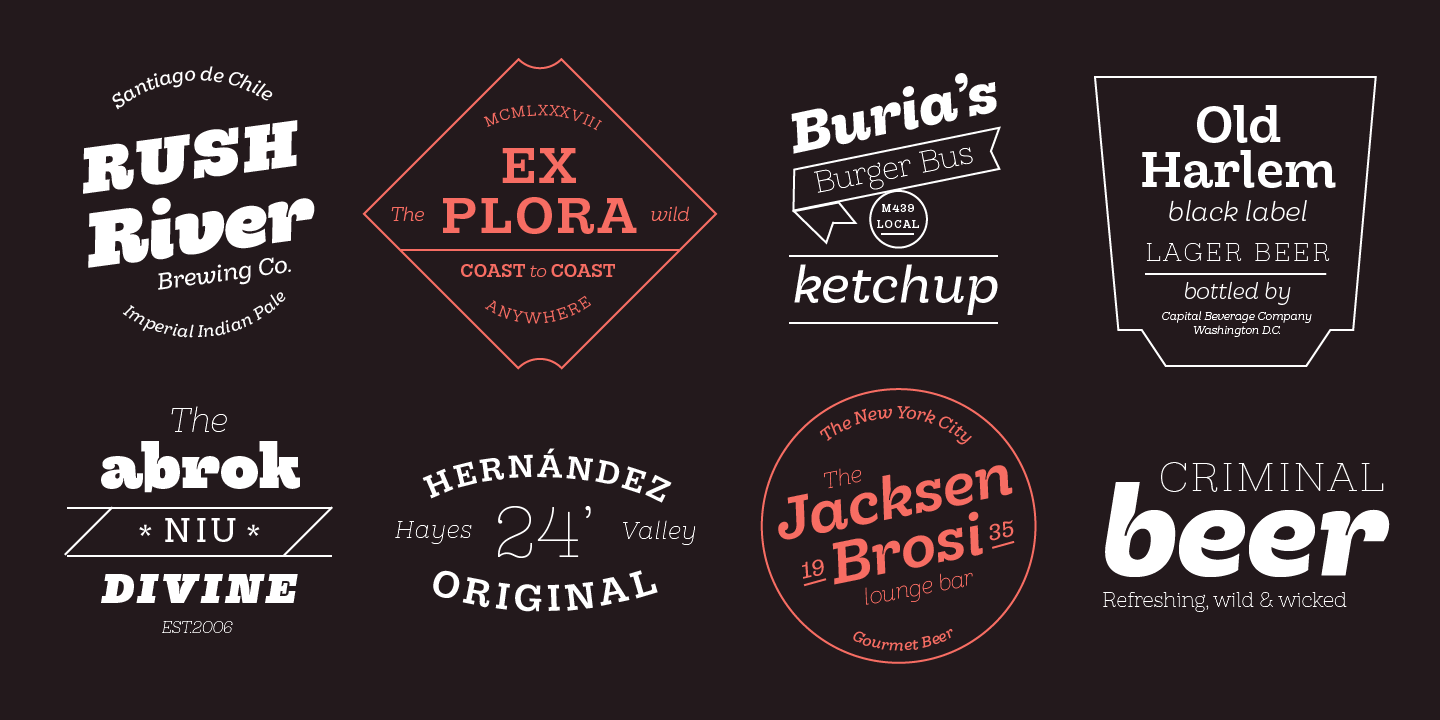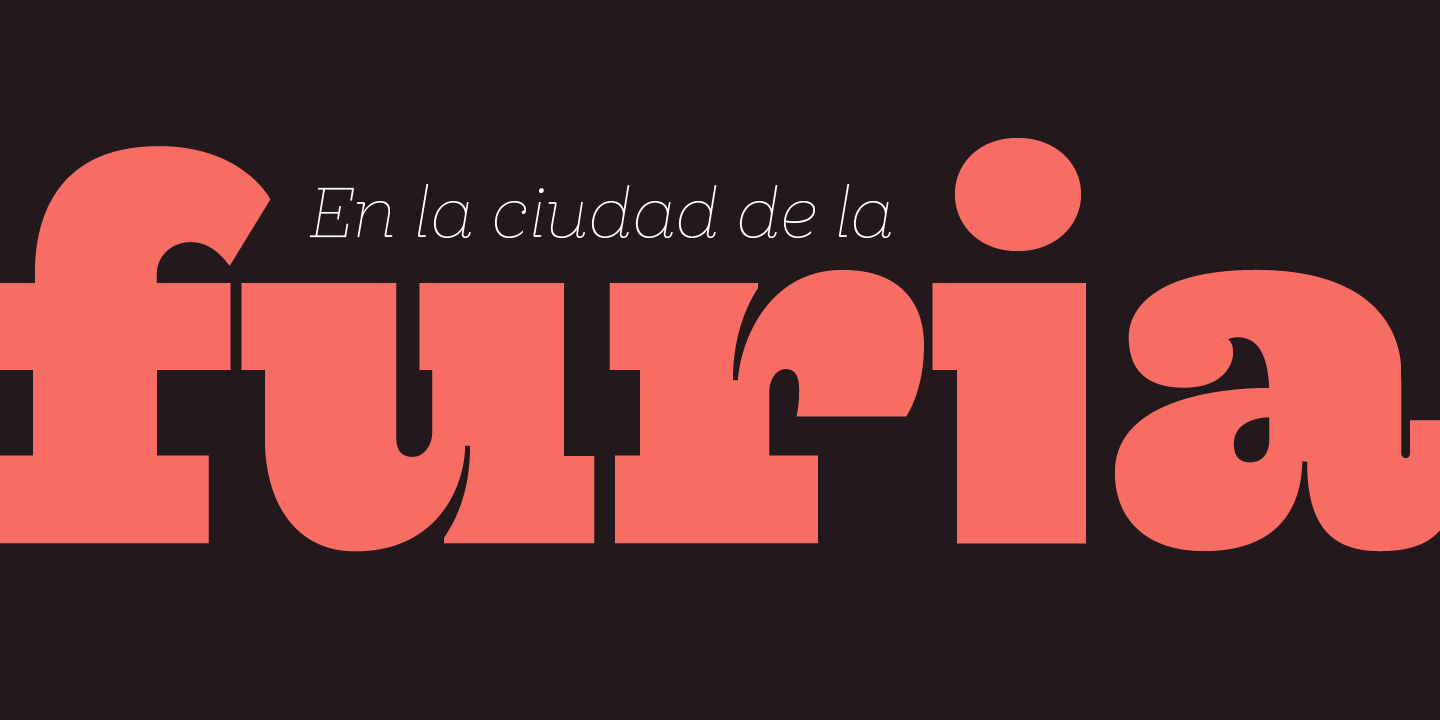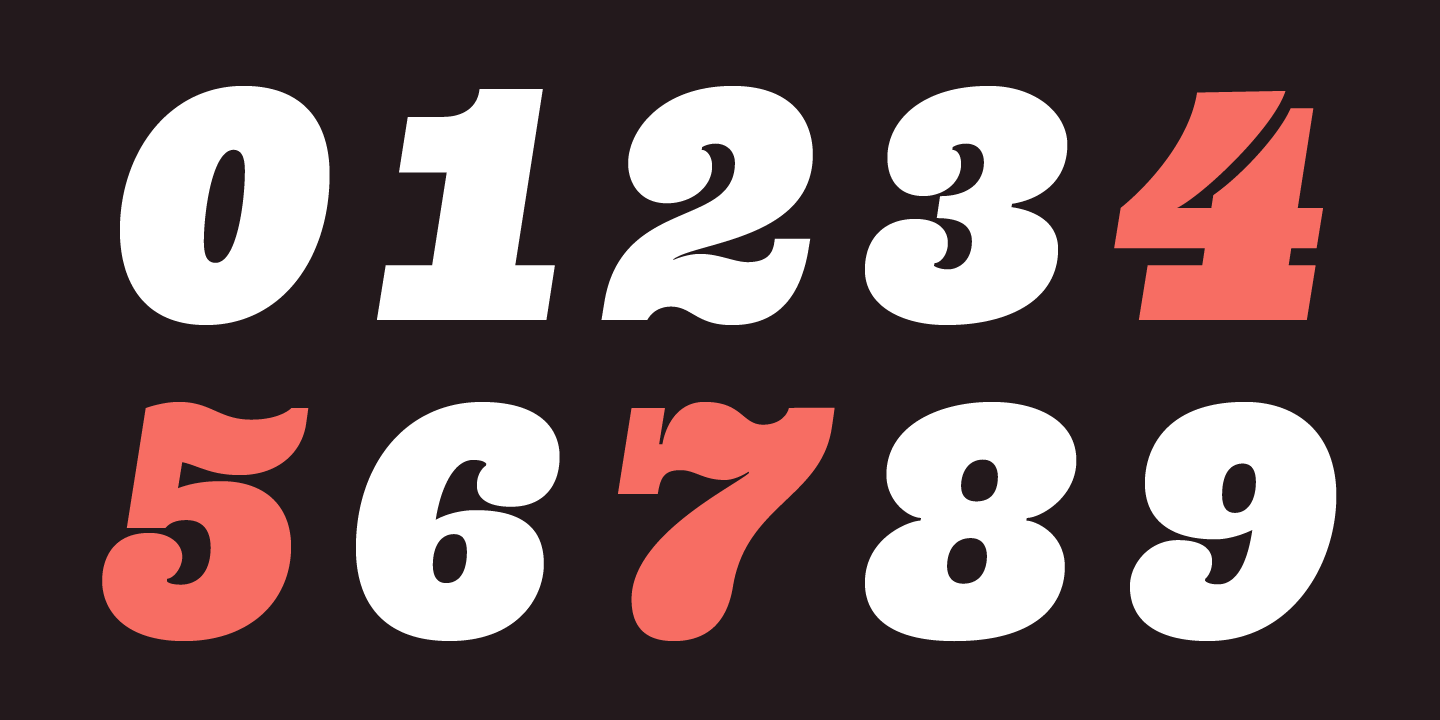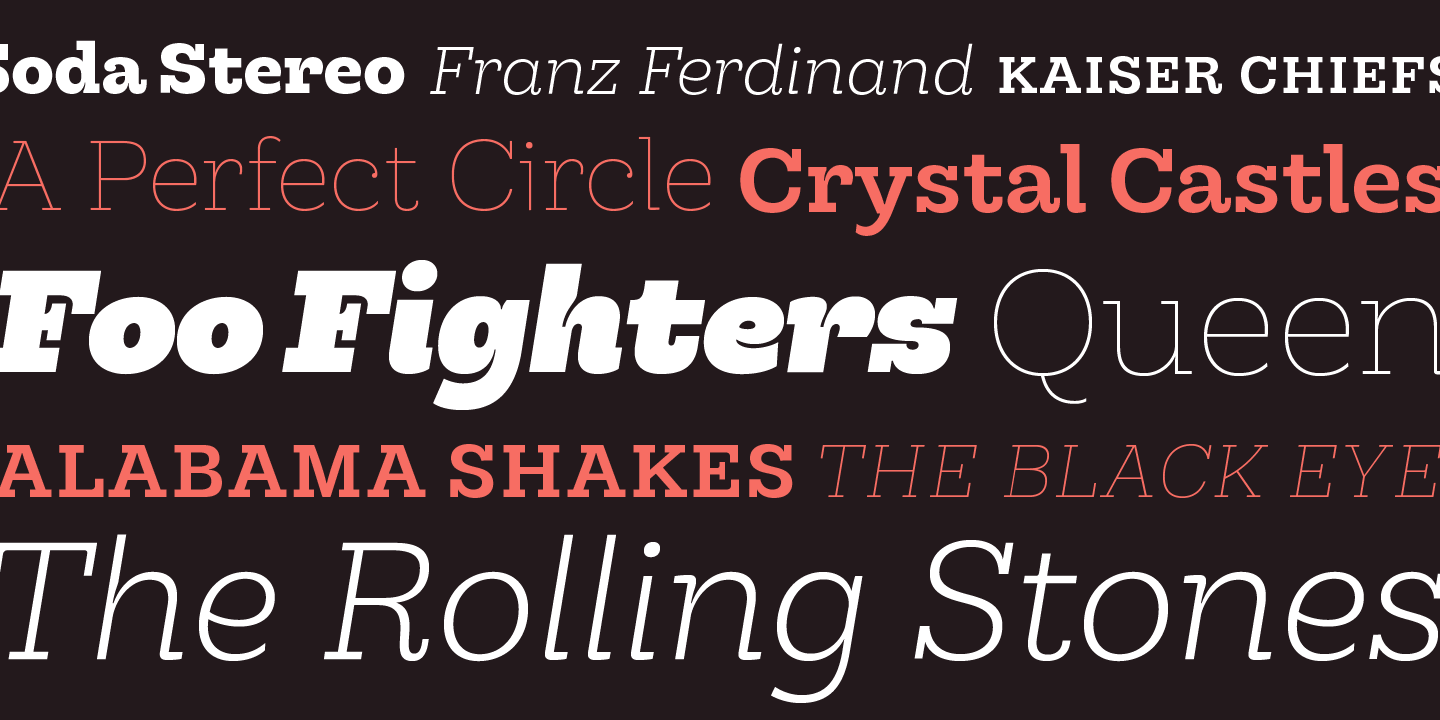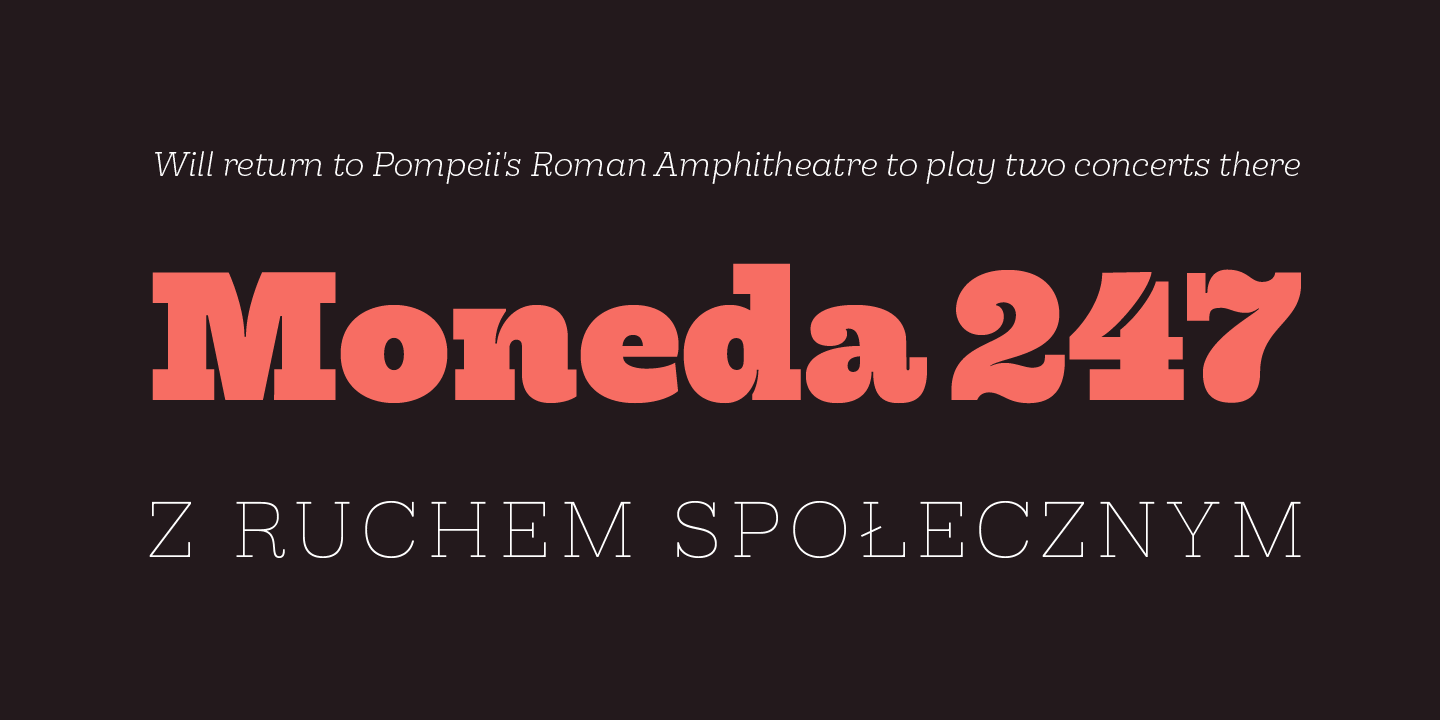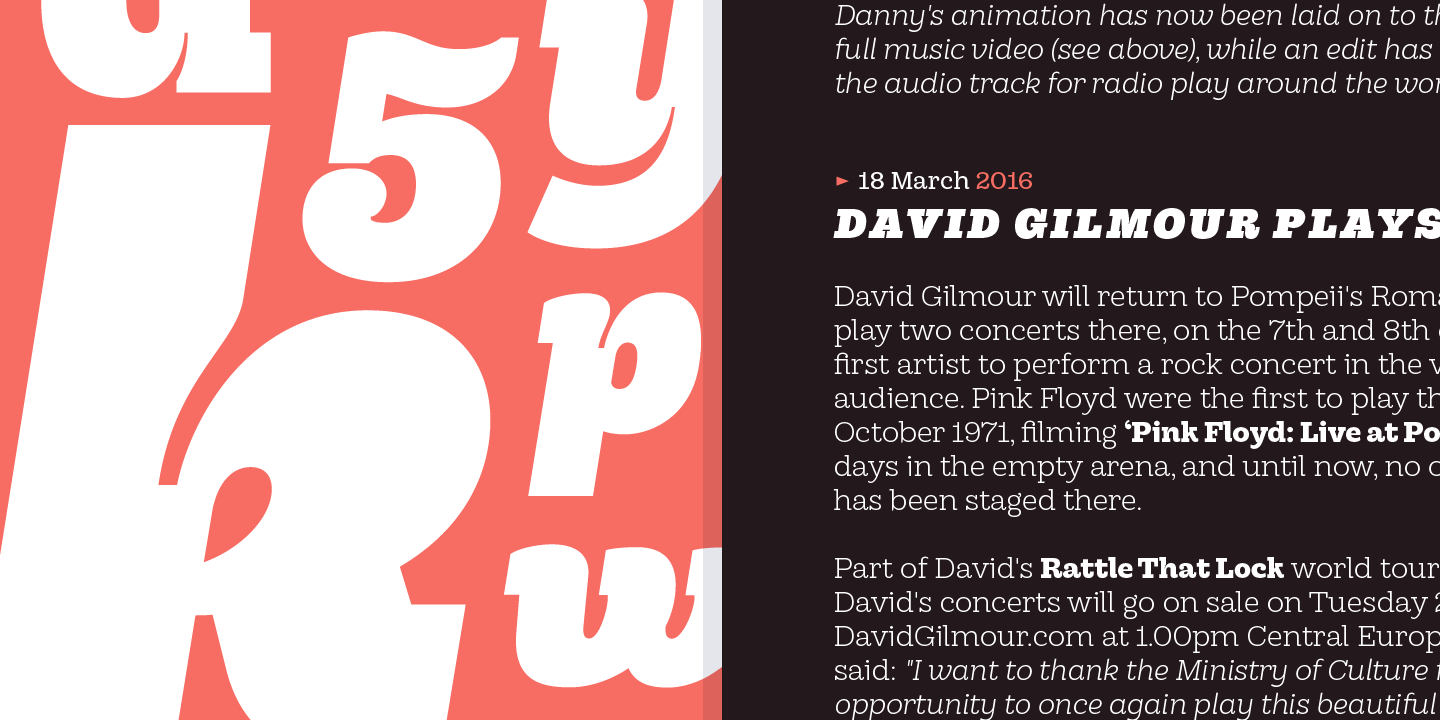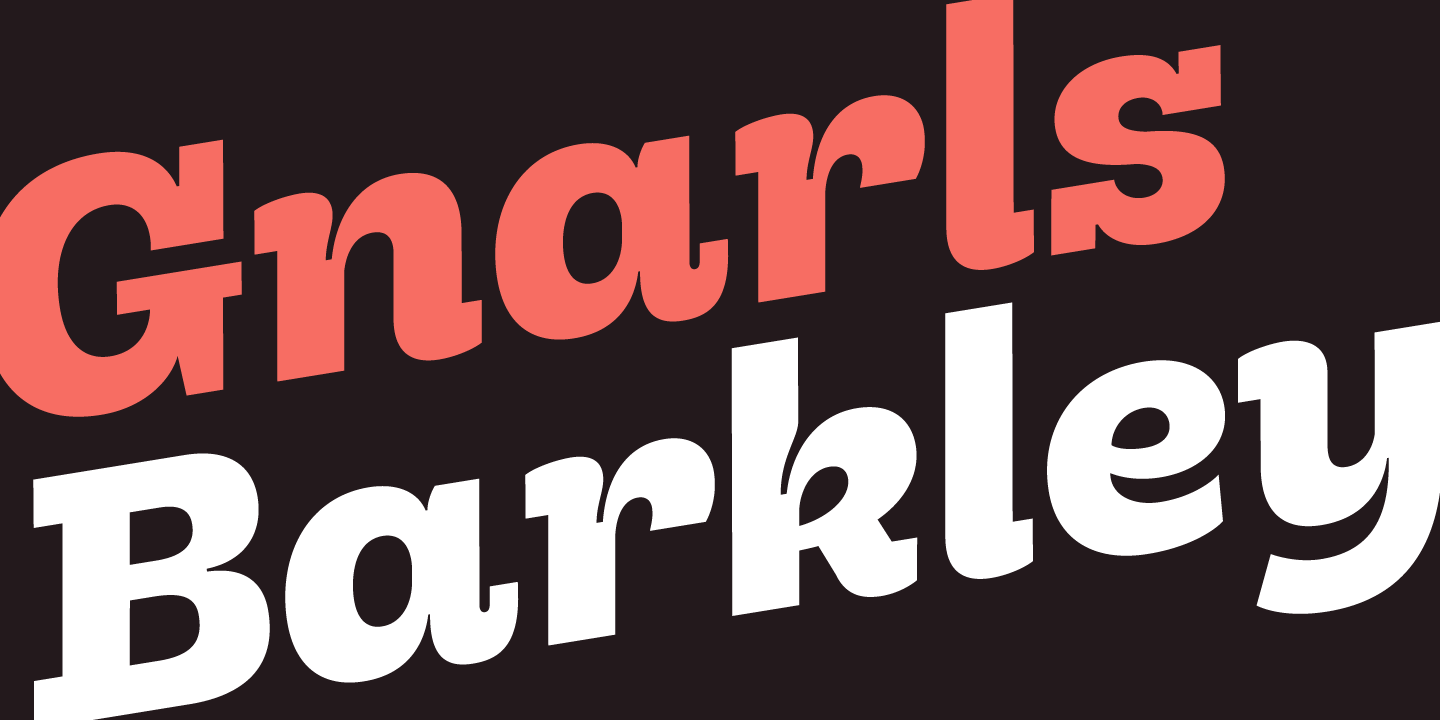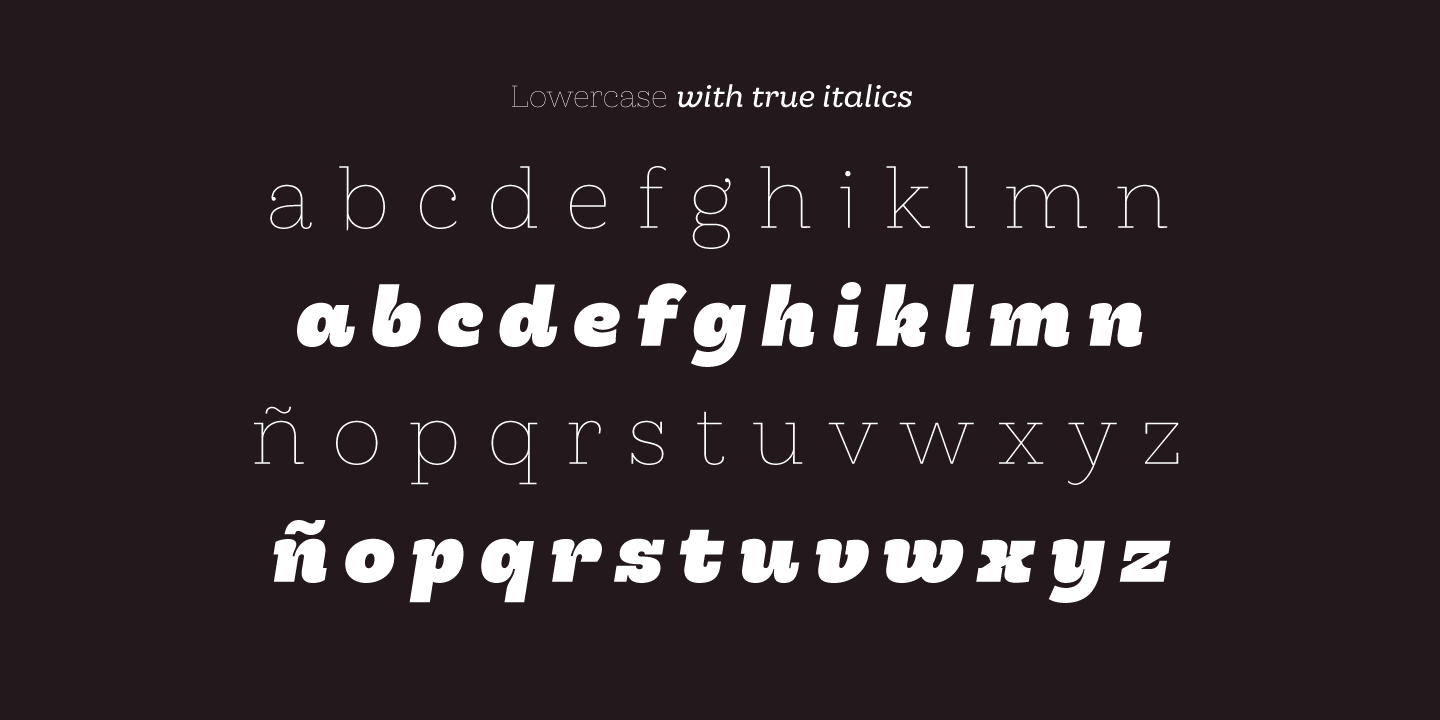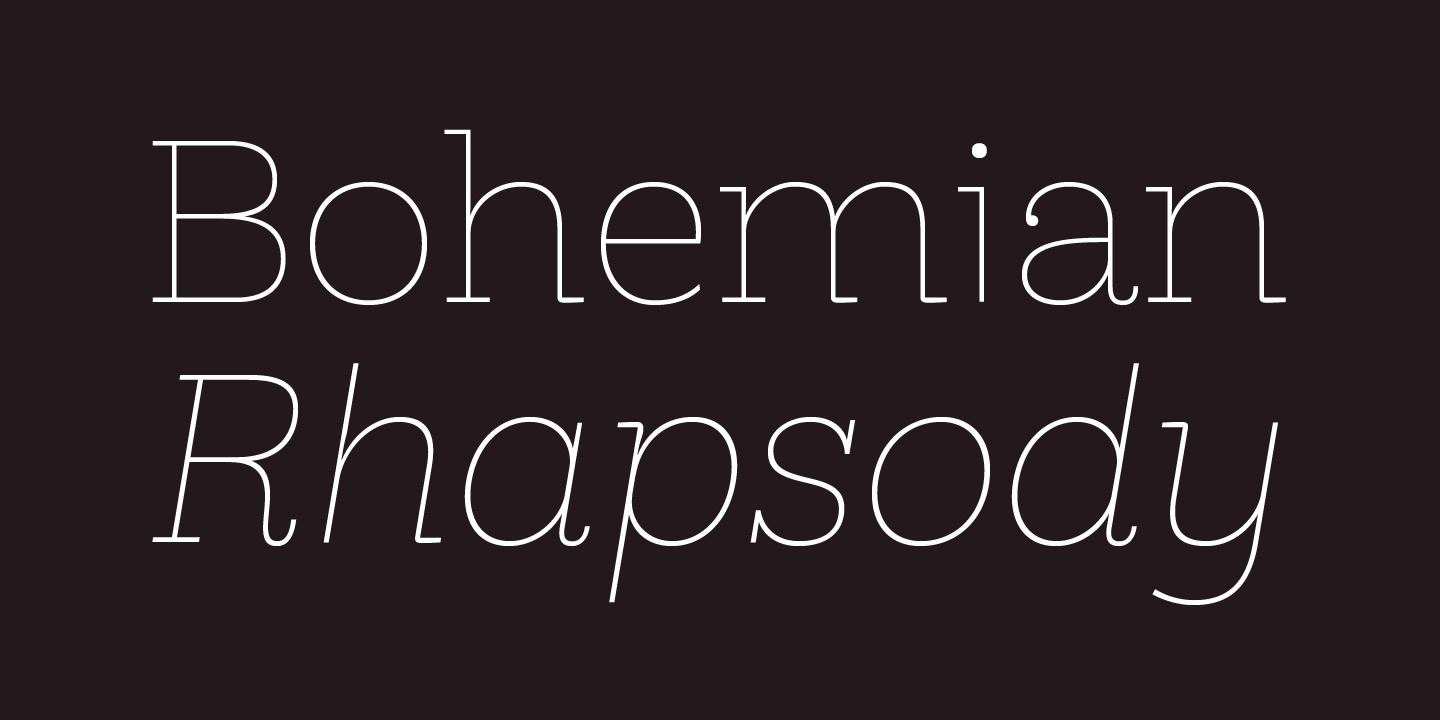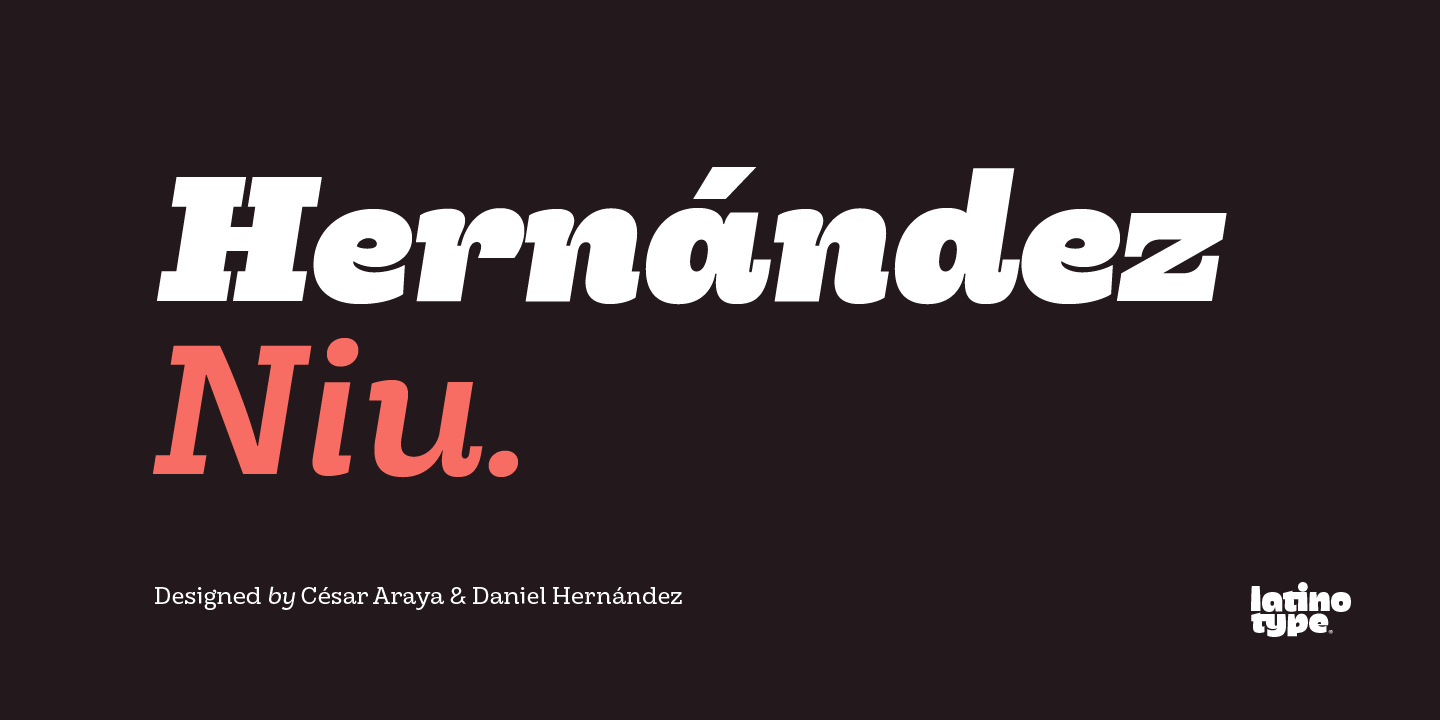
In the typedesign industry the terms ‘nova’, ‘neue’, ‘next’, ‘new’ are often used to refer to a typeface that has been modified in different ways: redesign, technical readjustments, greater number of characters, etc.
At Latinotype we are now starting to use the word ‘niu’ to refer to these kinds of typefaces. Niu is an adaptation of the original word ‘new’, i.e., we have adapted this English word to the phonology and spelling of our own language but keeping the original meaning.
Race mixing, diversity, change and adaptation are part of the essence of Latin American culture and, at Latinotype, we are all constantly expressing these elements in everything we do. Latin Power!
Hernández Niu was designed by César Araya and Daniel Hernández. The font is based on the design of Hernández Bold: the thickest weight has been adapted to fit small text better. Five new styles have been added, ranging from neutral to more expressive fonts.
Hernández Niu is a display slab serif font of thickened serifs, functional expressive ink-traps and true italics. Detailed forms and counterforms allow this typeface to be used in very large sizes.
Hernández Niu is well-suited for publishing, small text and headlines. A wide variety of weights make the font a perfect choice for hierarchical type-setting, branding, logotypes, magazines, etc.
This font consists of 6 weights, ranging from Extra Light to Heavy, each with matching true italics. Hernández Niu comes with a set of 397 characters, making it possible to use the font in 212 different languages.